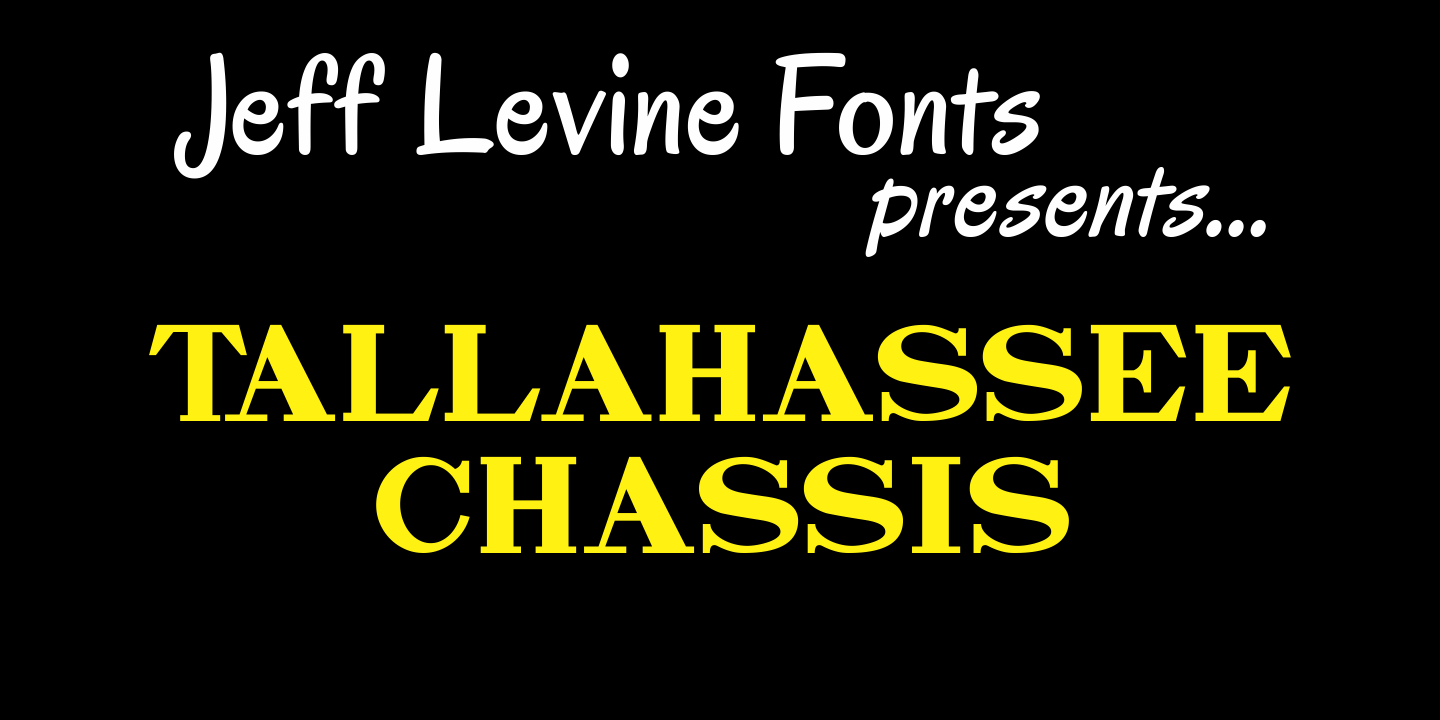
Tallahassee Chassis
Tallahassee Chassis JNL was modeled from a toy alphabet rubber stamp set made in Japan and imported to the U.S. during the late 1950s and early 1960s.
The lettering style somewhat resembled that found on the side of old railroad cars, buses or trolleys.